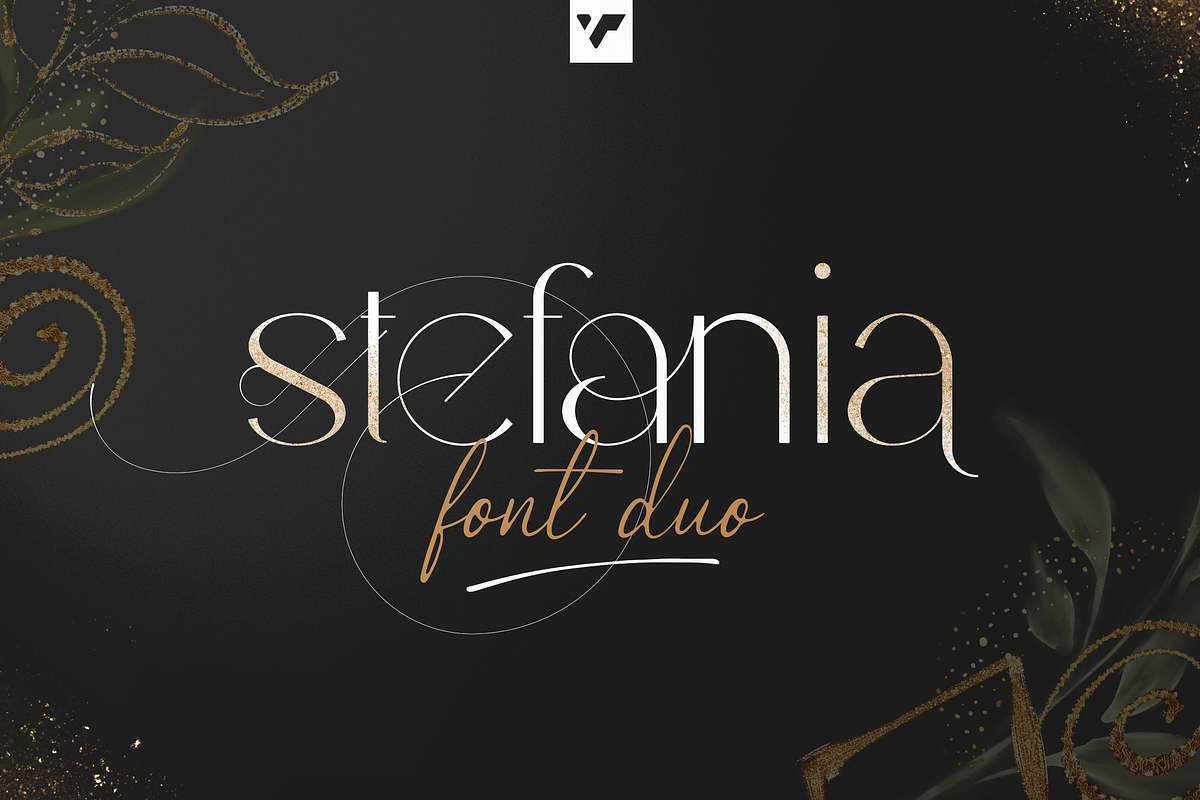
Stefania is a versatile font duo that combines a stylish script with an elegant serif, designed to bring sophistication and charm to various design projects. This pairing is particularly well-suited for wedding invitations, branding, logos, and other creative endeavors.
Font Styles: The duo includes a graceful script font alongside a refined serif font, offering flexibility and harmony in design compositions.
Design Aesthetic: Stefania exudes a classy and modern feel, making it ideal for projects that require an elegant touch.
Additional Elements: Some versions of the Stefania font duo come with extra features, such as swashes and ligatures, enhancing the creative possibilities.
Incorporating the Stefania font duo into your design projects can add a touch of elegance and sophistication, enhancing the overall aesthetic appeal.